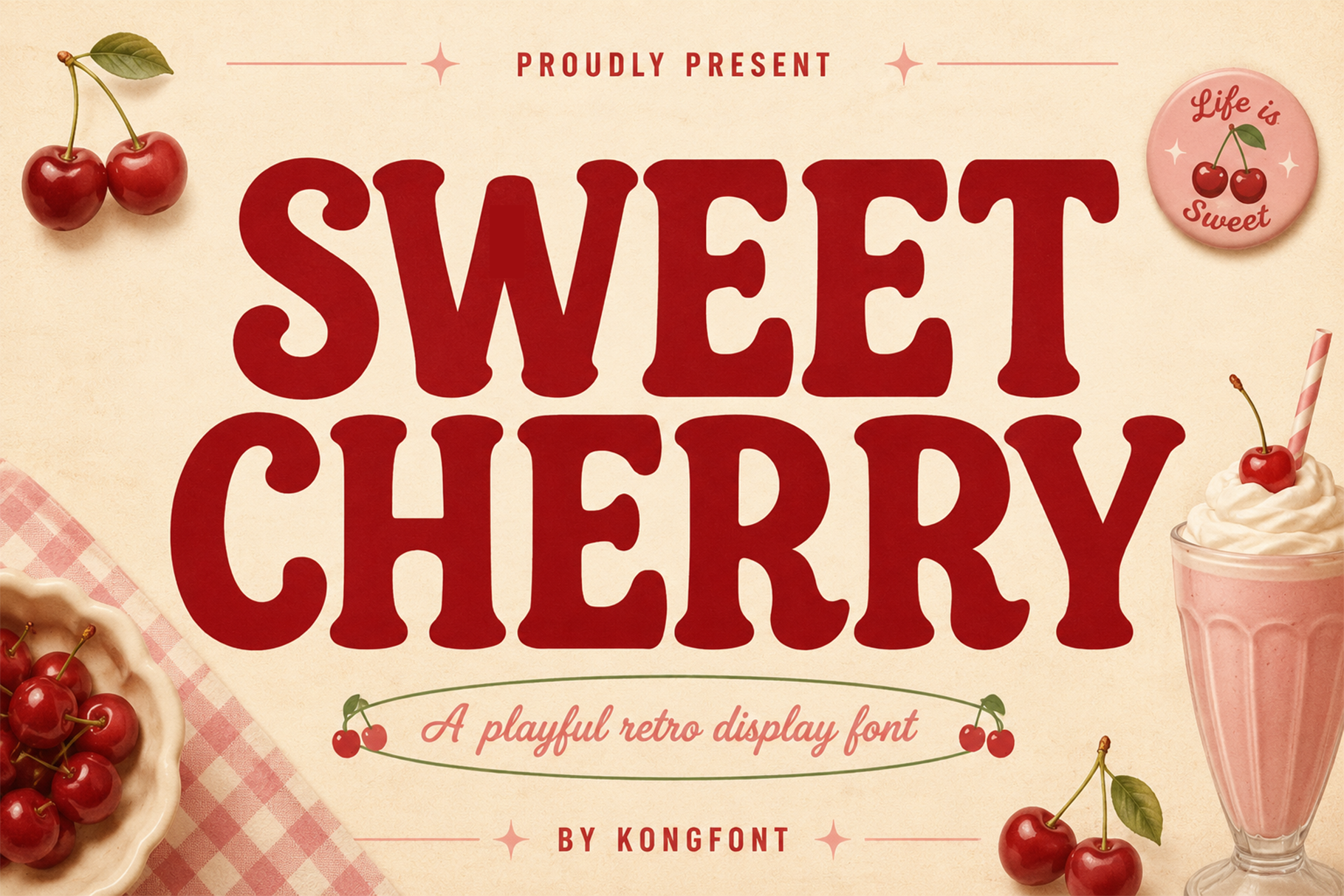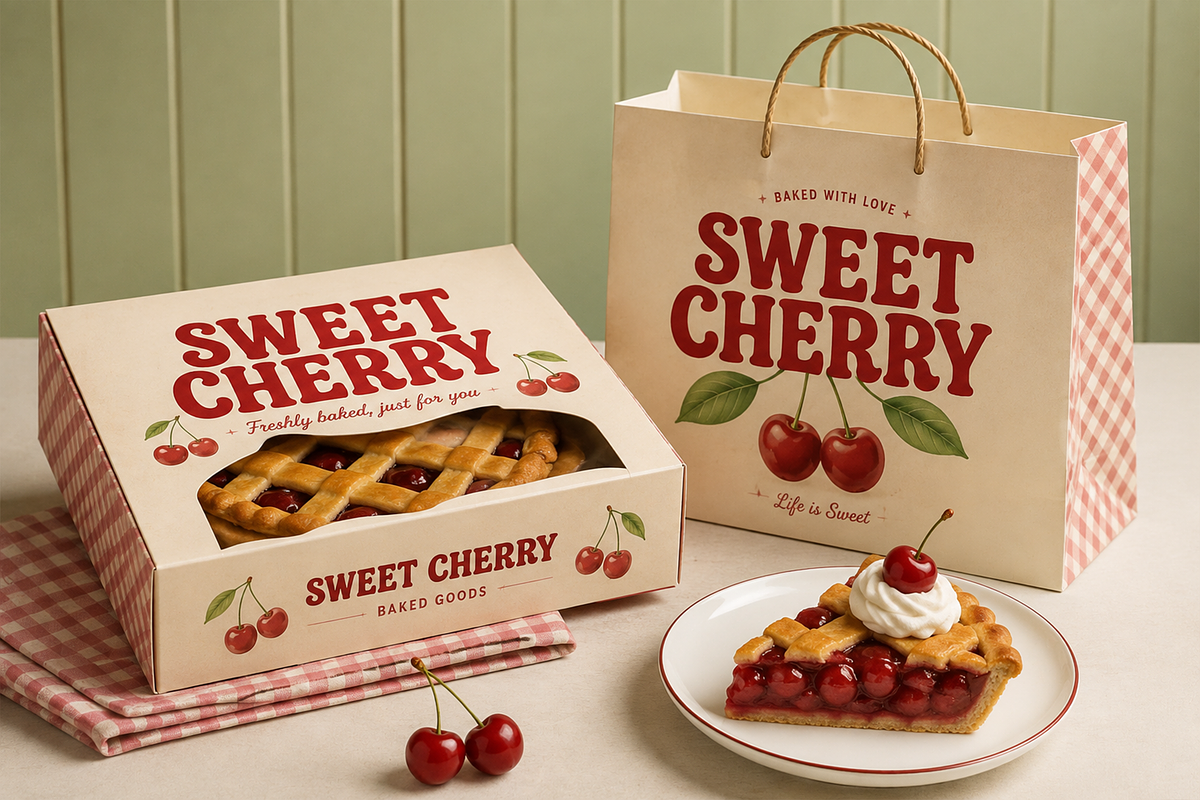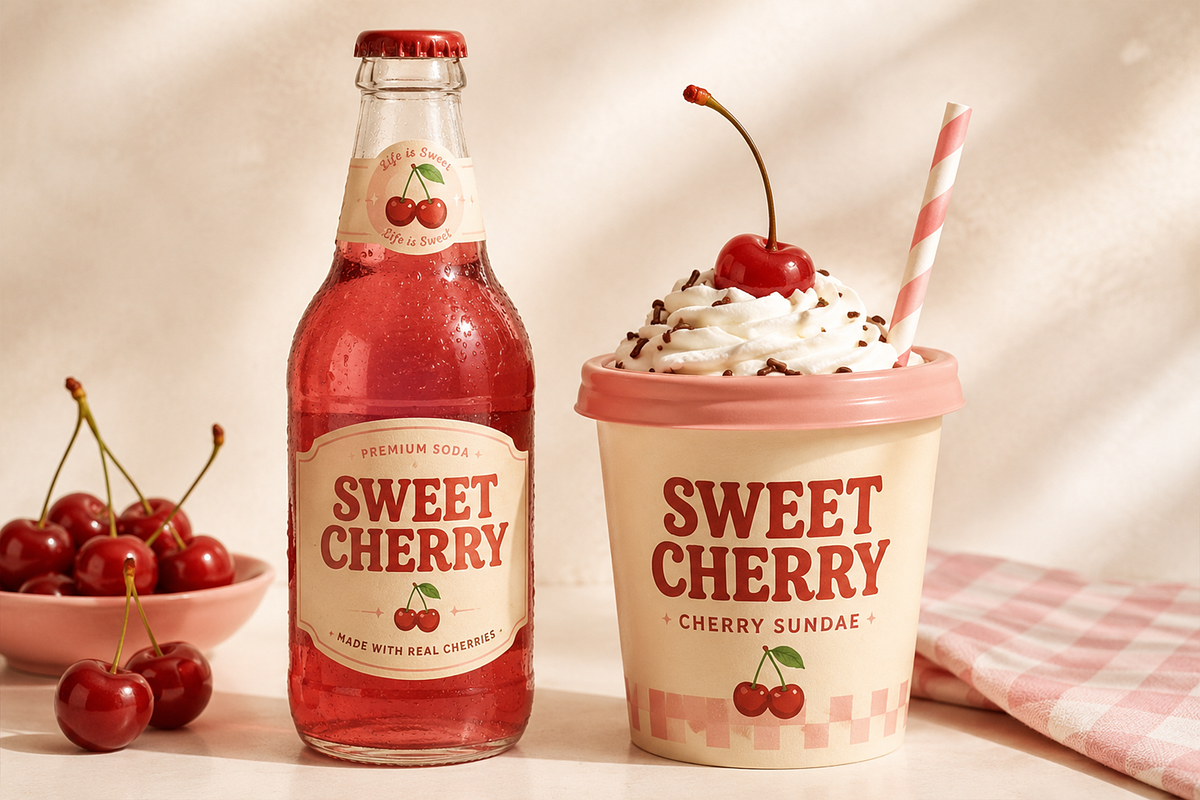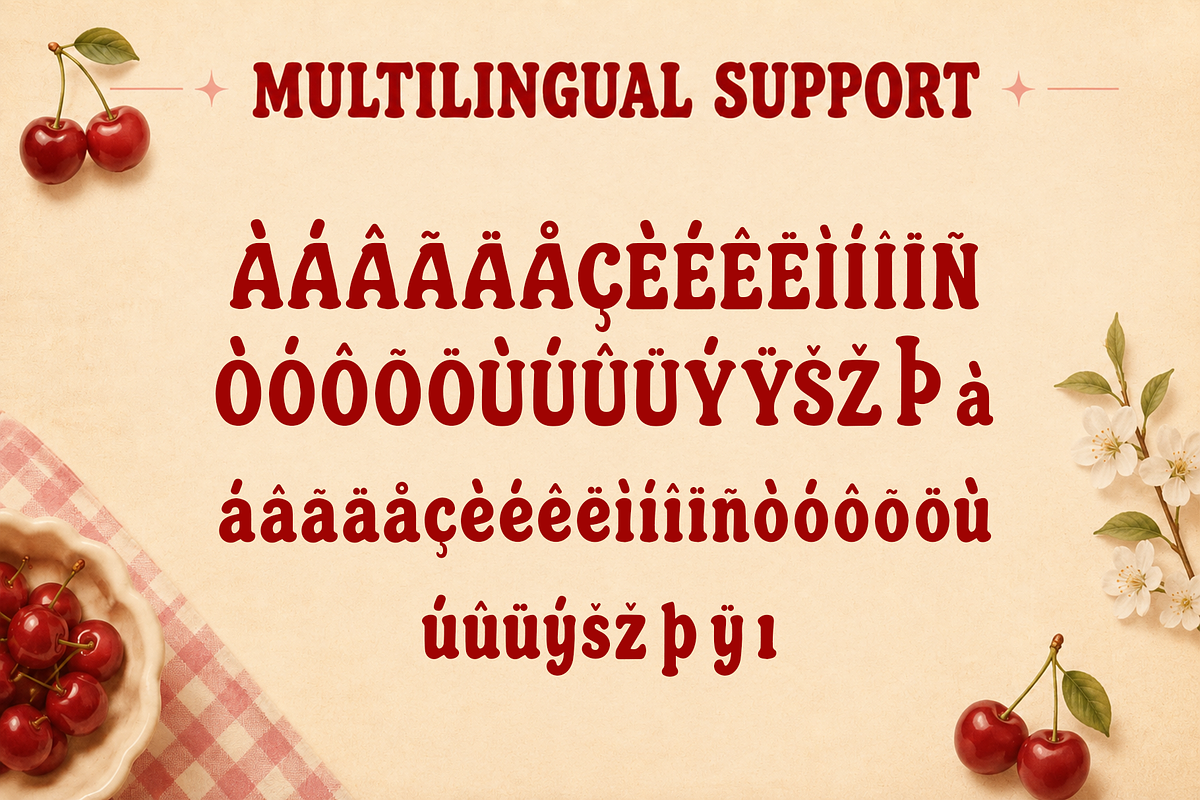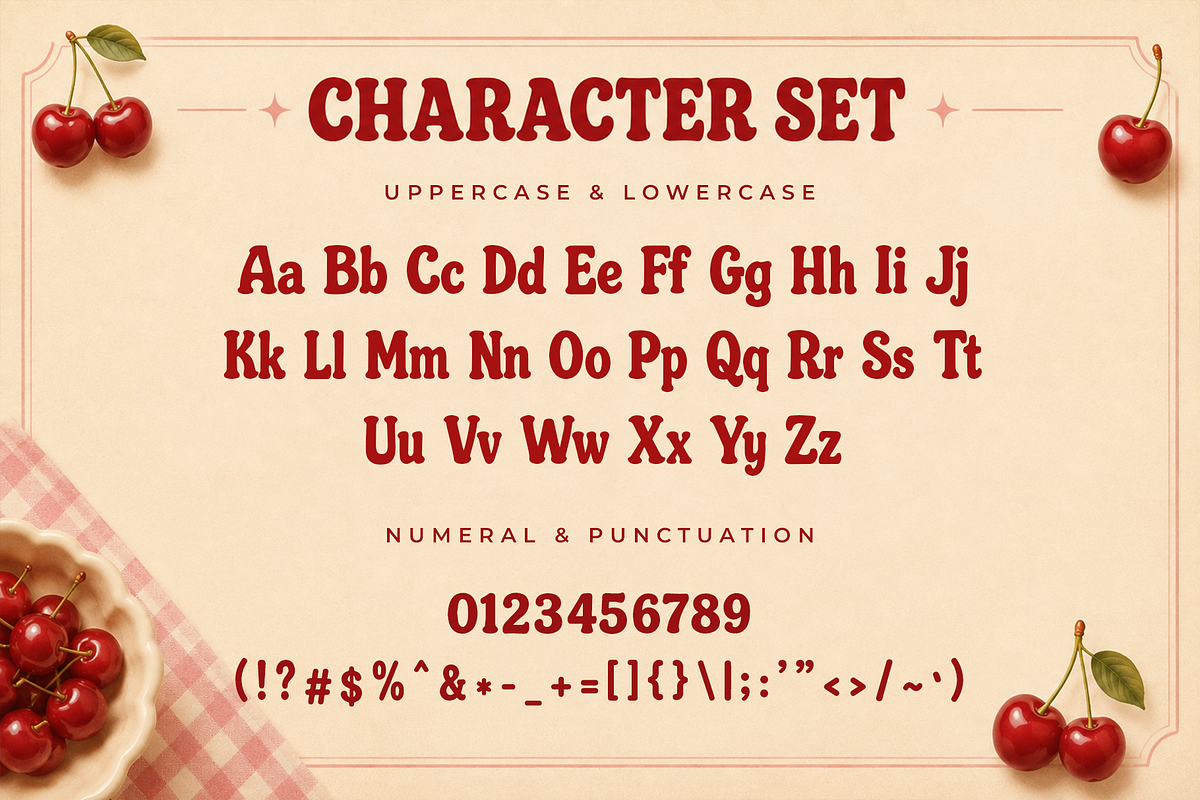
Sweet Cherry - Retro Display Font
Sweet Cherry - Playful Retro Display Font
Meet "Sweet Cherry," a playful retro display font inspired by classic diners, nostalgic packaging, vintage advertisements, and cheerful mid-century typography. Featuring bold rounded serifs, soft curves, and a charming old school personality, Sweet Cherry brings warmth, sweetness, and instant character to every design.
Sweet Cherry works especially well for bakeries, ice cream shops, milkshake bars, candy brands, cafés, restaurants, picnic themed designs, fashion graphics, and lifestyle products. Its nostalgic personality makes it a natural choice for projects inspired by the 1950s, 1960s, and timeless Americana aesthetics.